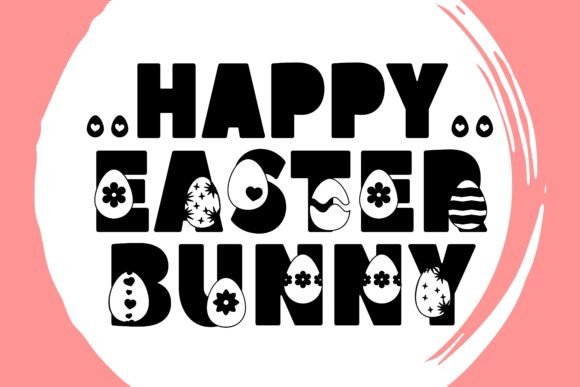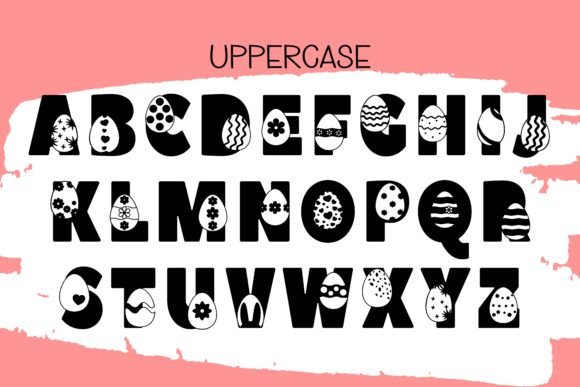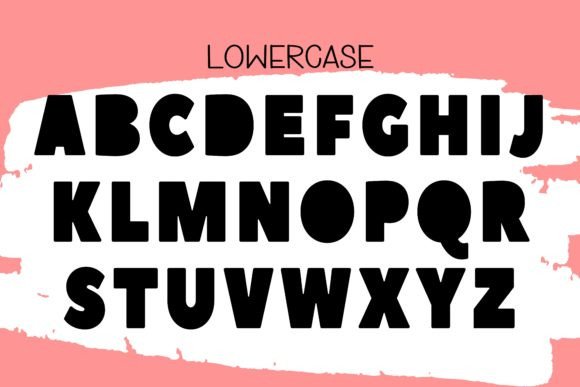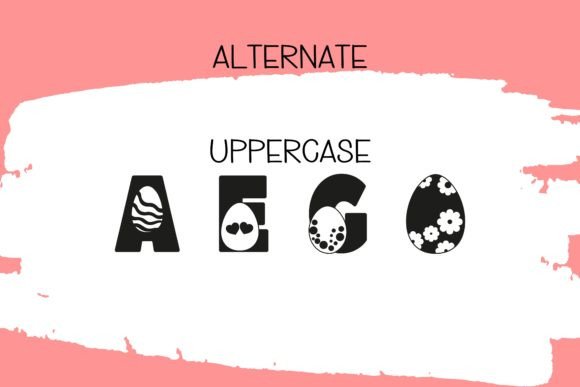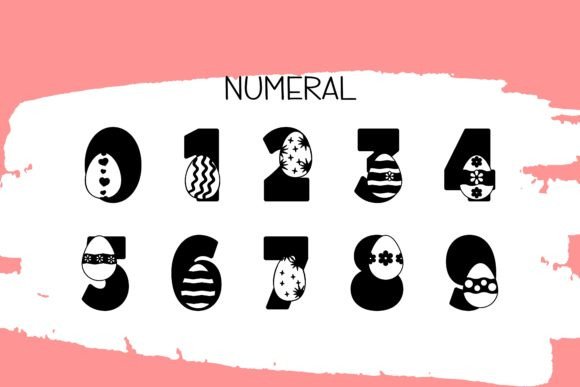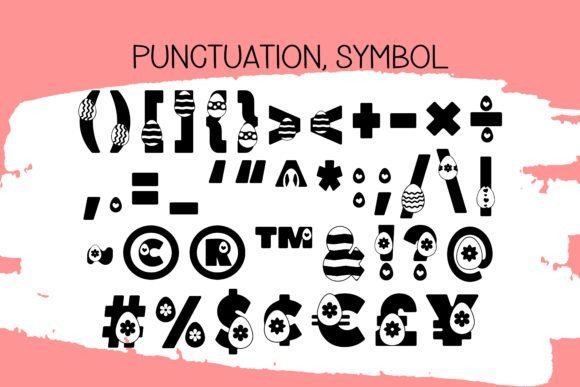
Egg-stra Special Font for Easter: Introducing Eggspert Hunter Font
Are you ready to hop into the spring season with a fresh and festive touch? Look no further than the Eggspert Hunter Font, a beautiful and cute decorative font featuring Easter eggs that’s perfect for adding a playful twist to your designs. In this article, we’ll dive into the delightful details of this must-have font and explore how you can use it to give your projects a fresh look and feel.
The Story Behind Eggspert Hunter Font
Eggspert Hunter Font is a unique and creative design that celebrates the joy and wonder of Easter. The font features playful Easter egg shapes, complete with delightful details and whimsical flourishes. Each letter is carefully crafted to bring a smile to your face, making it the perfect addition to any spring-themed project. Whether you’re a designer, crafter, or DIY enthusiast, this font is sure to inspire your creativity and add a touch of festive fun to your work.
Key Features of Eggspert Hunter Font
- Playful Easter Egg Shapes: Each letter in the Eggspert Hunter Font is designed to resemble a colorful Easter egg, complete with intricate details and patterns.
- Delightful Details: From stripes and polka dots to flowers and bows, every element of this font is carefully crafted to add a touch of whimsy and fun to your designs.
- Festive and Fun: Whether you’re creating Easter-themed crafts, spring-inspired artwork, or simply want to add a playful touch to your projects, Eggspert Hunter Font is the perfect choice.
Ideas for Using Eggspert Hunter Font
So, how can you use Eggspert Hunter Font to add a festive touch to your designs? Here are a few ideas to get you started:
- Easter Crafts: Use Eggspert Hunter Font to create custom Easter egg decorations, gift tags, and cards that are sure to delight.
- Spring Invitations: Add a playful touch to your spring-themed invitations, whether you’re hosting an Easter party or simply want to celebrate the arrival of warmer weather.
- Social Media Graphics: Use Eggspert Hunter Font to create eye-catching social media graphics that showcase your spring-inspired designs and projects.
- Blog and Website Headers: Give your blog or website a fresh new look with a custom header featuring Eggspert Hunter Font.
Tips for Getting the Most Out of Eggspert Hunter Font
To make the most of Eggspert Hunter Font, here are a few tips to keep in mind:
- Experiment with Colors: Try pairing Eggspert Hunter Font with a range of bright, pastel colors to create a truly eye-catching design.
- Mix and Match: Combine Eggspert Hunter Font with other spring-themed design elements, such as floral patterns or Easter egg illustrations, to create a unique and visually appealing design.
- Play with Texture: Add an extra layer of depth and interest to your design by incorporating texture and patterns into your Eggspert Hunter Font elements.
If you’re looking for a fun and festive font to add a touch of springtime magic to your designs, look no further than Eggspert Hunter Font. With its playful Easter egg shapes, delightful details, and easy-to-use design, this font is sure to become a go-to in your design toolkit. So why wait? Hop into the season with Eggspert Hunter Font and start creating your own Easter-inspired masterpieces today!